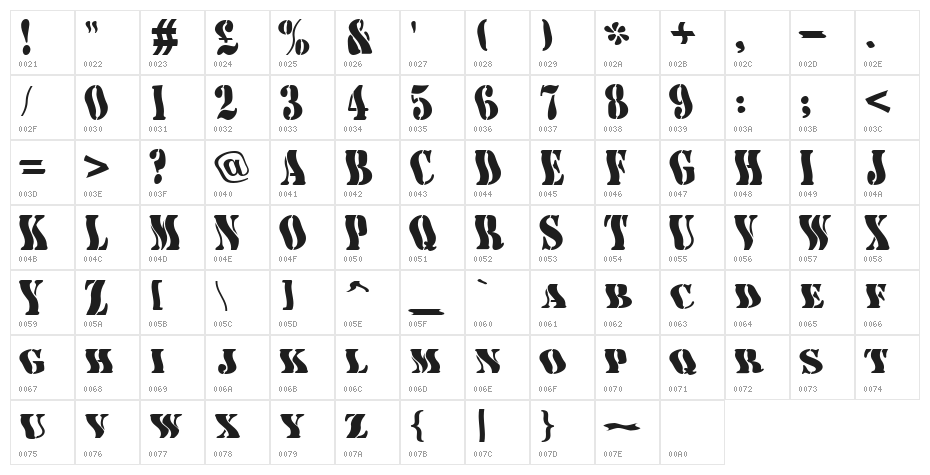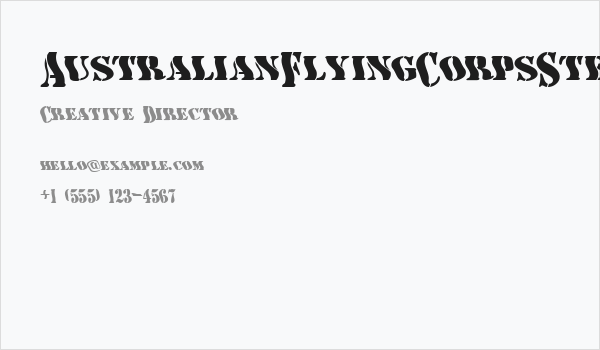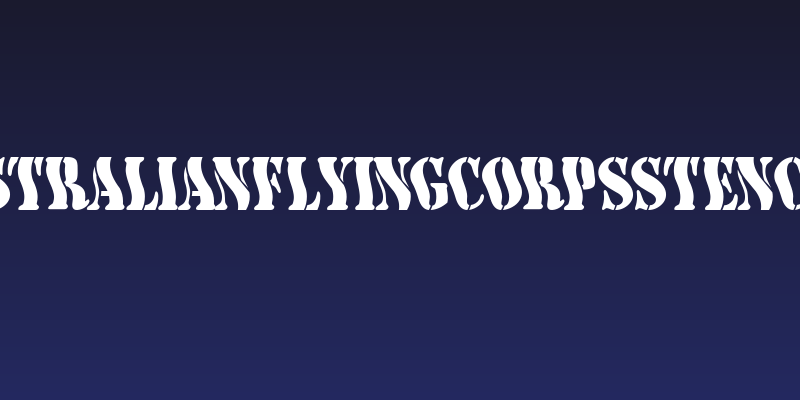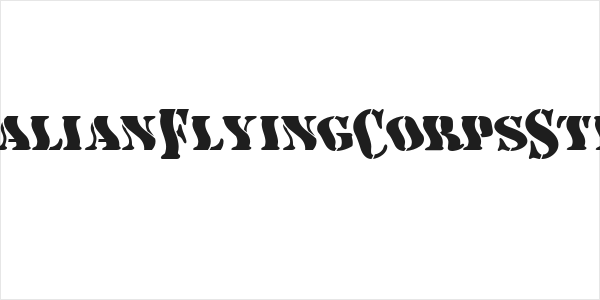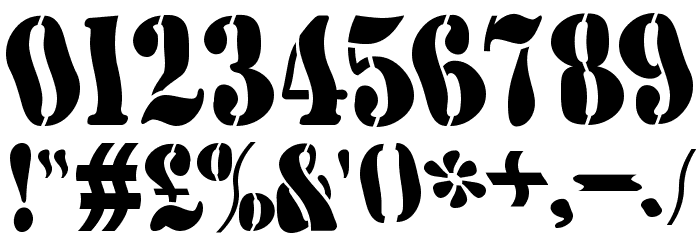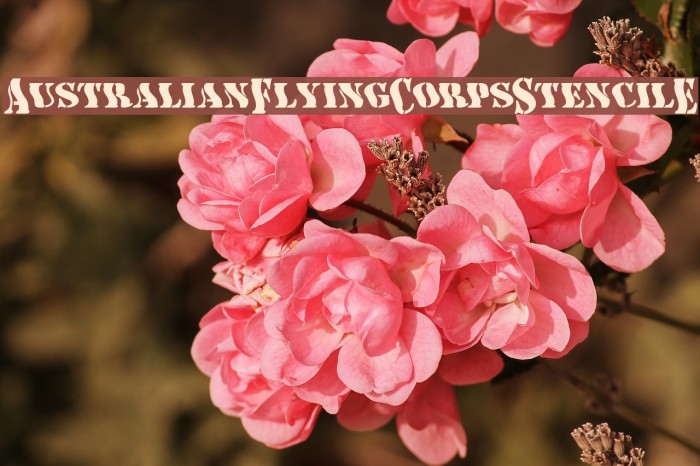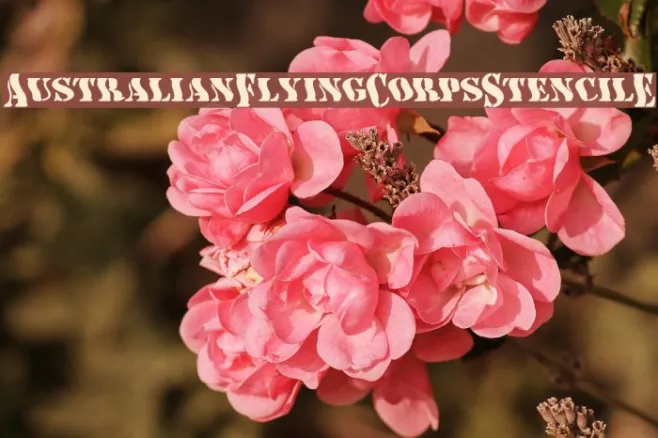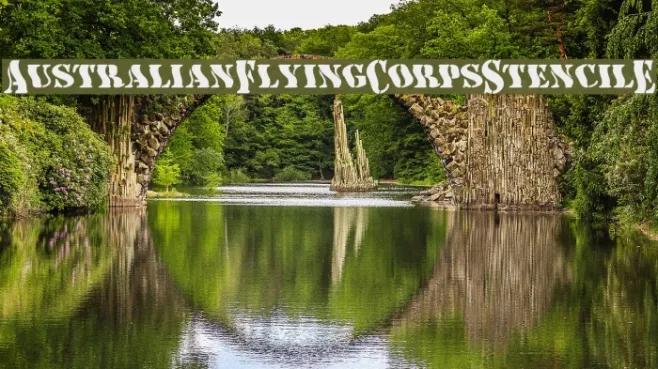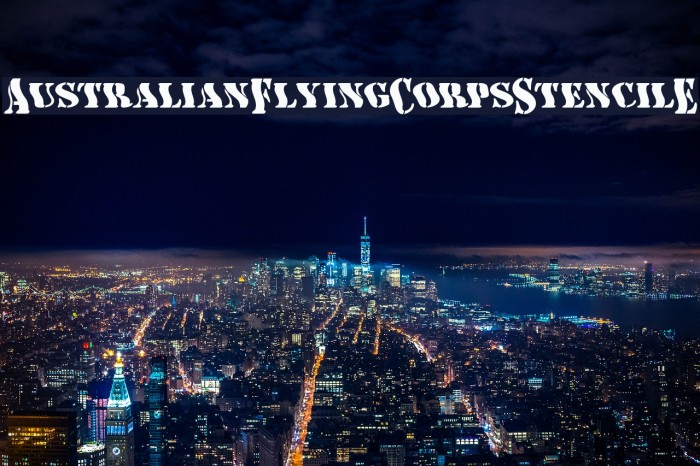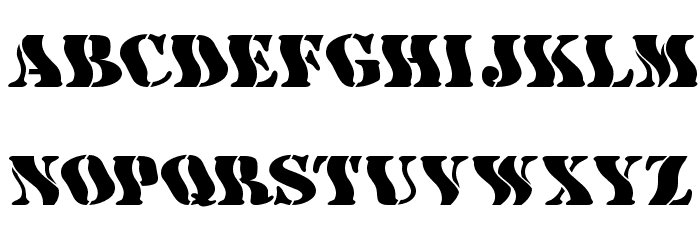
AustralianFlyingCorpsStencilE Font
AustralianFlyingCorpsStencilE Description
This font features a bold, stencil-like design with distinct cut-out sections that give it a rugged and utilitarian appearance. The characters are uppercase and numerals, with a strong emphasis on geometric shapes and sharp angles. The font's style is reminiscent of military or industrial stencils, often used for labeling equipment or vehicles. The bold strokes and high contrast between the filled and empty spaces create a striking visual impact, making it suitable for attention-grabbing headlines or signage. The overall aesthetic is both vintage and functional, evoking a sense of history and purpose.
| Overall Style | Vintage, Industrial |
| Use Case | Headlines, Signage, Branding |
| Proposed Projects | Ideal for military-themed designs, industrial signage, posters, and branding that requires a strong, impactful presence. |
| Author | Perry Mason |